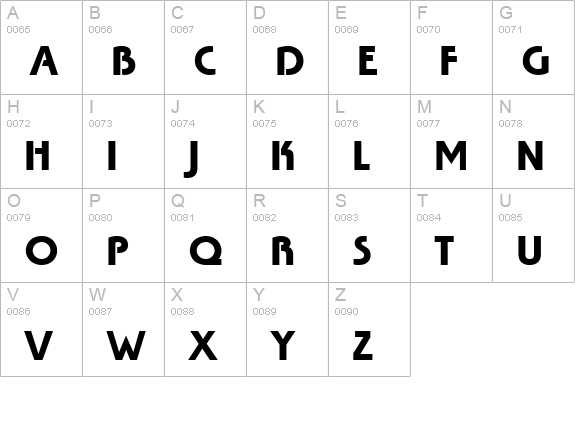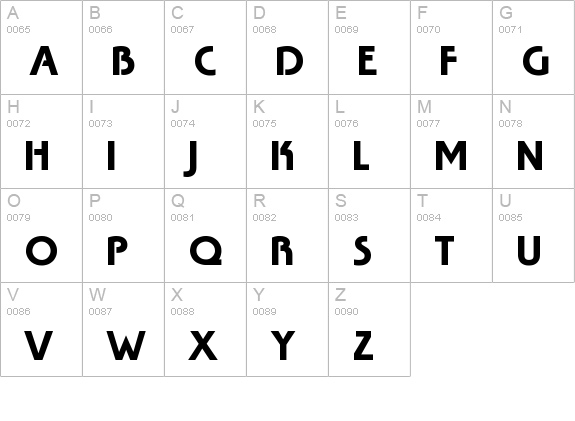
Mingle Regular Font Details
Mingle Regular is the standard, neutral variant in the Mingle typeface family \xE2\x80\x94 well suited to general body text, paragraphs, and standard typographic work.
Mingle Regular font is a versatile and modern typeface that exudes sophistication and elegance. With its clean lines and balanced proportions, this font is perfect for a wide range of design projects, from branding to editorial design. The Mingle Regular font offers a unique blend of classic and contemporary elements, making it a timeless choice for any creative endeavor. Best of all, Mingle Regular font is available for free download at FontsMarket.com. This means that you can easily access this high-quality font and use it in your projects without any cost. Don't miss out on this opportunity to enhance your designs with the elegant and stylish Mingle Regular font. Download it today and elevate your creative work to the next level.